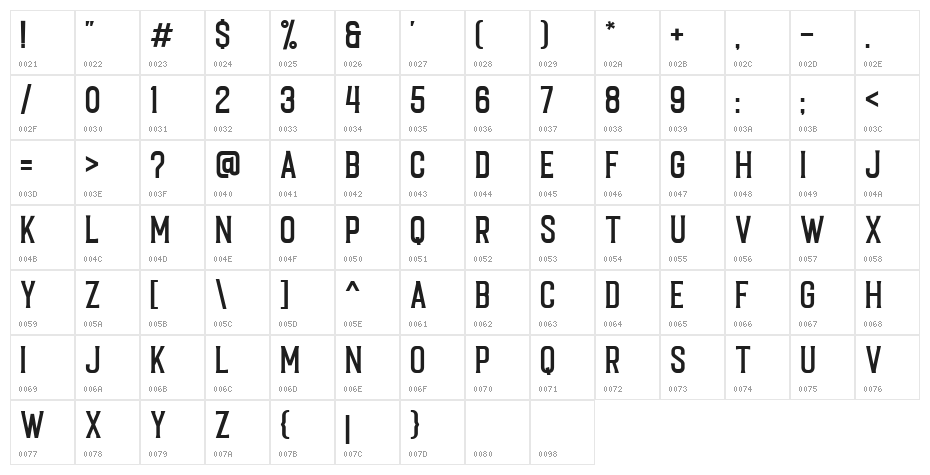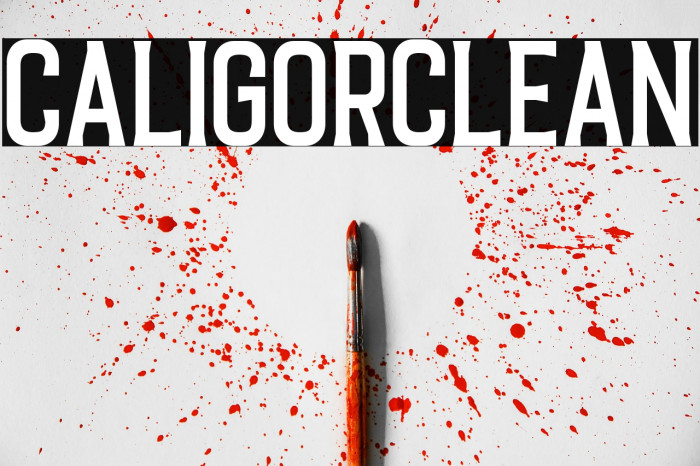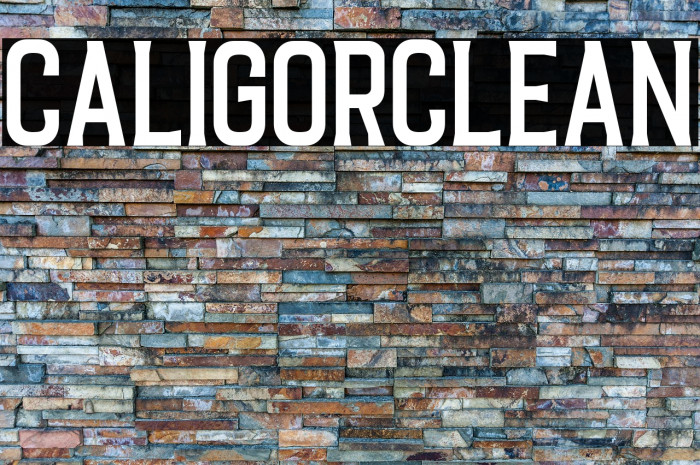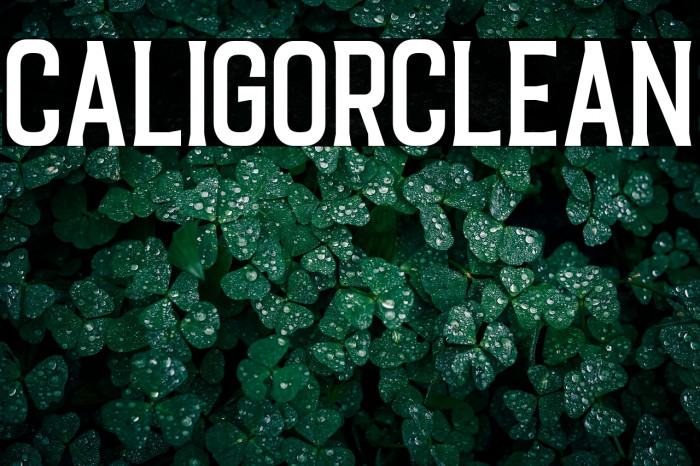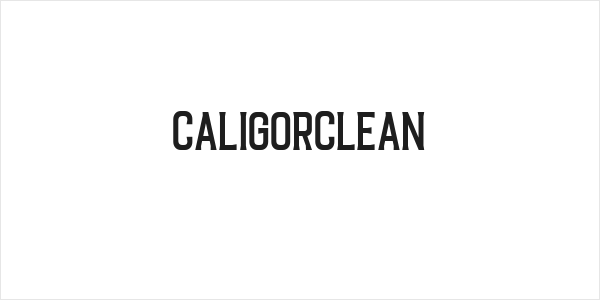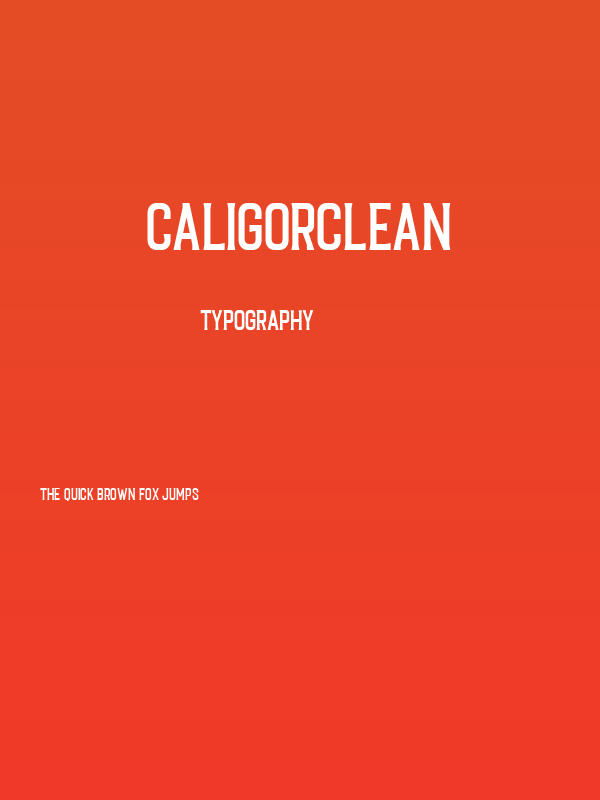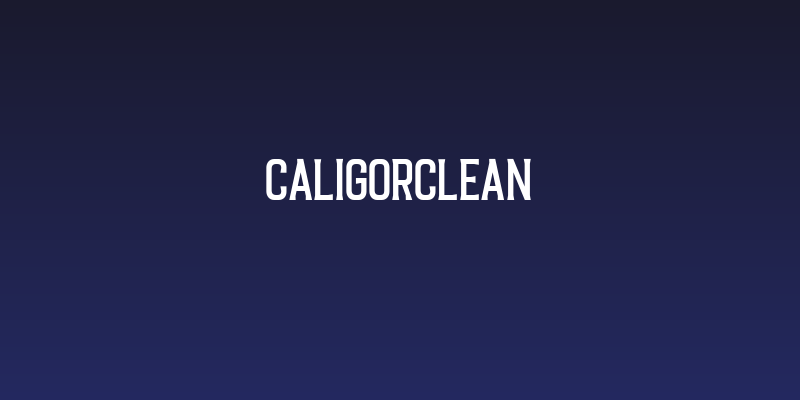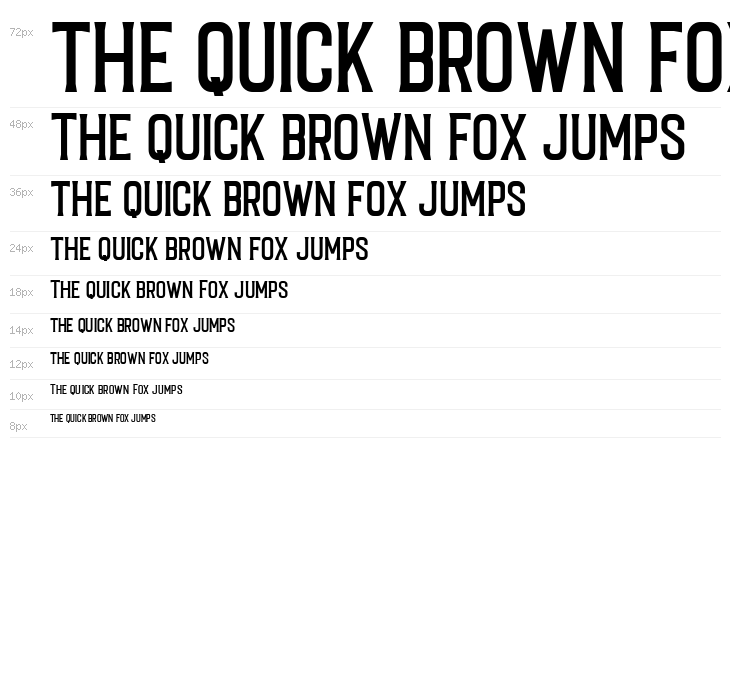
CaligorClean Font
CaligorClean Description
This font features a bold and assertive design with a strong presence. The characters are tall and slightly condensed, giving it a modern and sleek appearance. The uppercase letters are uniform in height, while the lowercase letters maintain a consistent baseline, enhancing readability. The numerals are clear and distinct, matching the overall boldness of the font. Special characters are well-defined, maintaining the font's cohesive style. The strokes are consistent in thickness, providing a balanced and harmonious look.
| Width | Condensed |